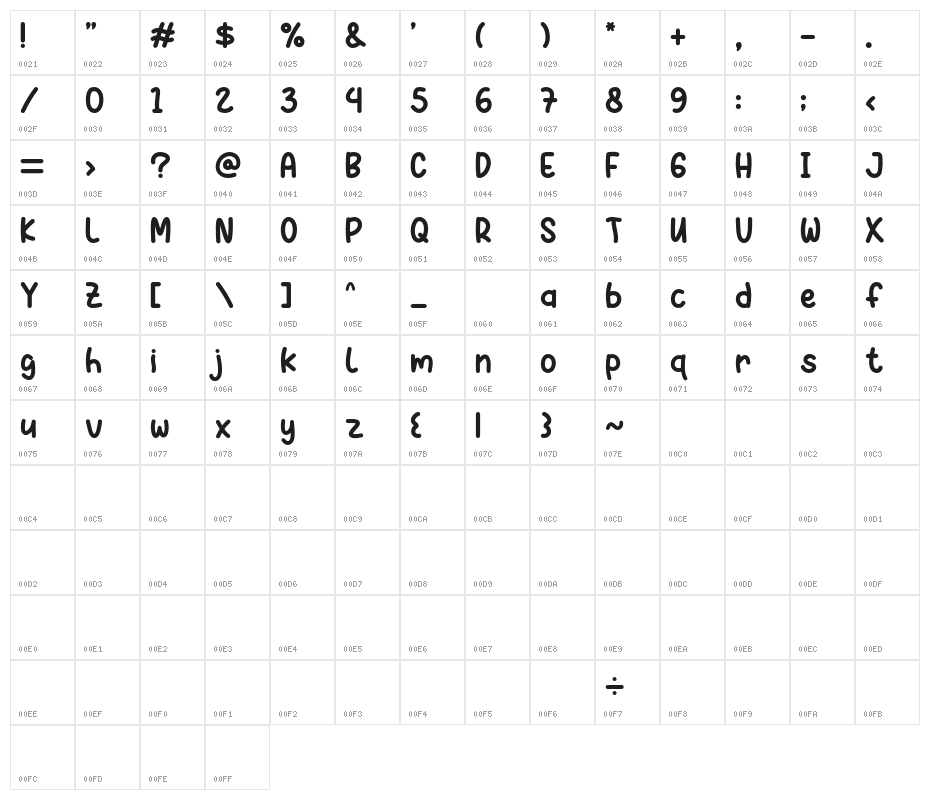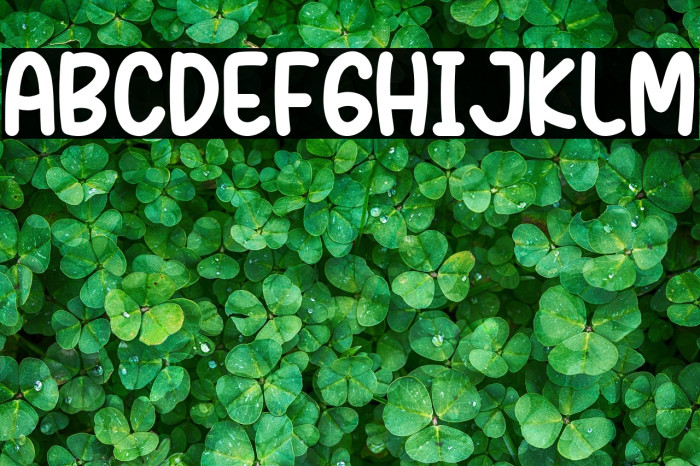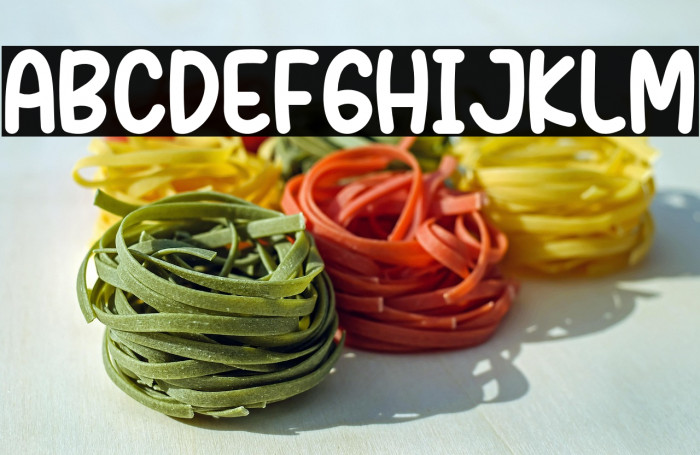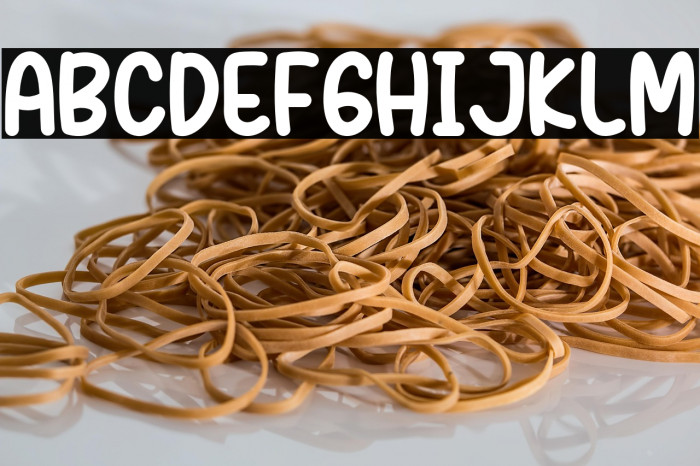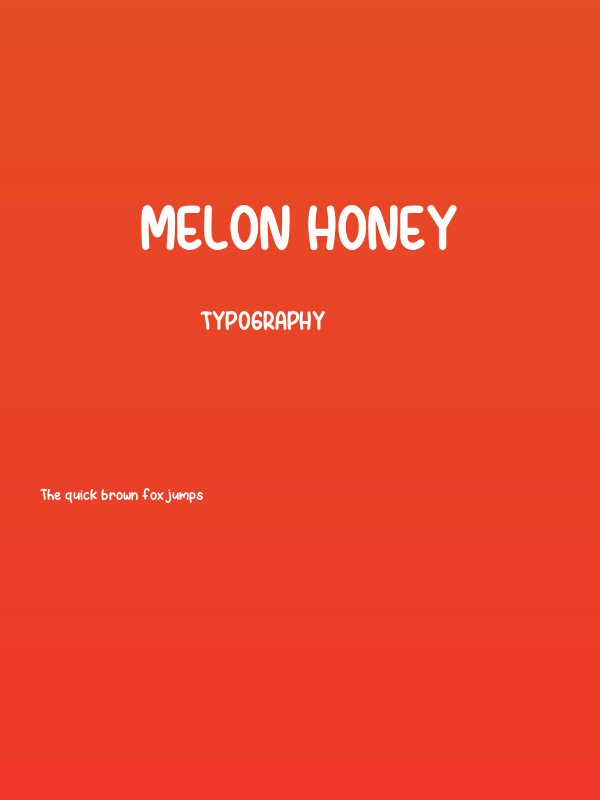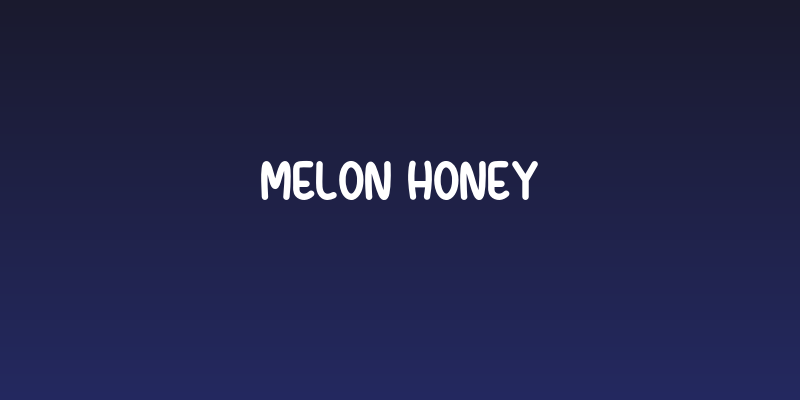
Melon Honey Font
Melon Honey Description
This playful and rounded font features a bold, hand-drawn style that exudes a sense of fun and approachability. The characters are thick and slightly irregular, giving them a whimsical and informal appearance. The uppercase and lowercase letters maintain a consistent style, with rounded edges and a slightly bouncy baseline. The numerals and special characters follow the same playful design, making the font versatile for various creative projects. Its bold strokes and friendly curves make it ideal for designs that aim to convey warmth and friendliness.
| Proposed Projects | Ideal for children's books, playful branding, greeting cards, and informal posters. |